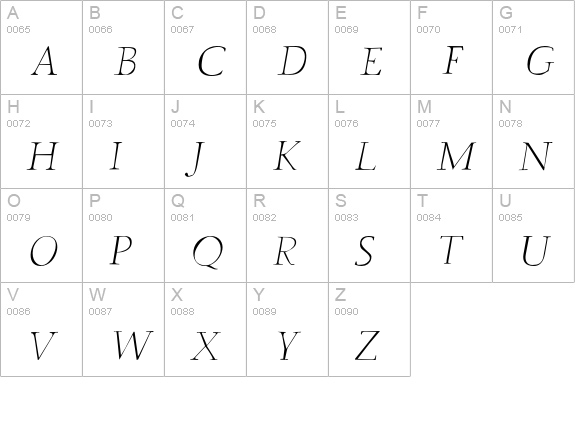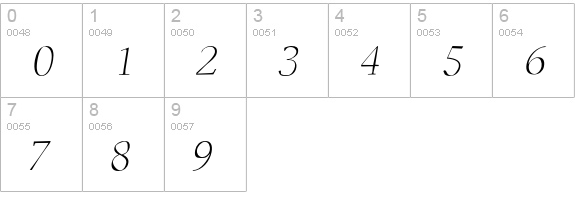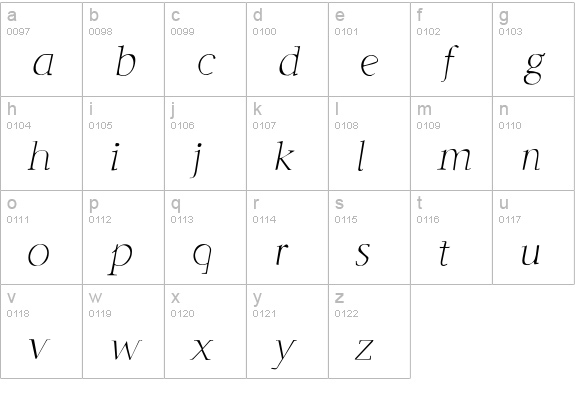
GodlikeItalic Font Details
Introducing GodlikeItalic font, a stunning and powerful typeface that exudes divine elegance and sophistication. Its sleek, italic design adds a touch of grandeur to any project, making it perfect for creating impactful headlines, logos, and branding materials. With its majestic curves and striking presence, GodlikeItalic is sure to elevate your design to godlike levels. Best of all, GodlikeItalic is completely free to download at FontsMarket.com. So why wait? Unleash the power of GodlikeItalic in your designs today and make a statement that is truly divine.